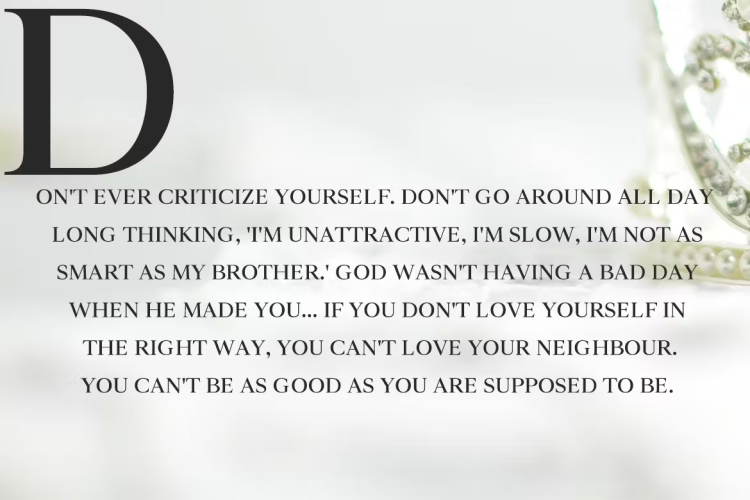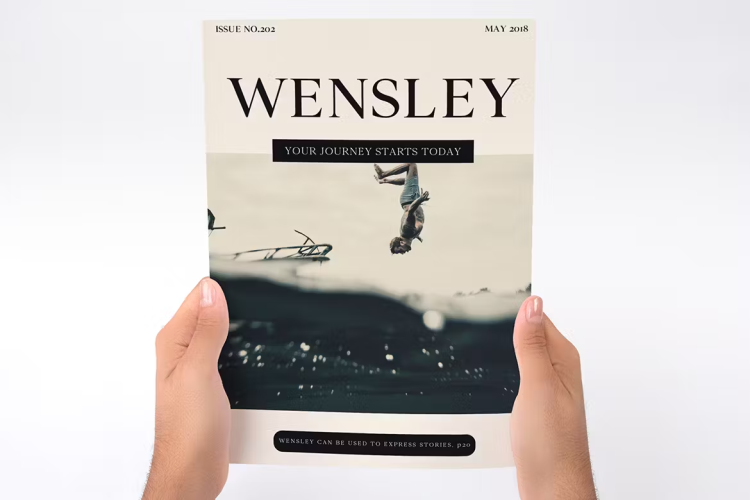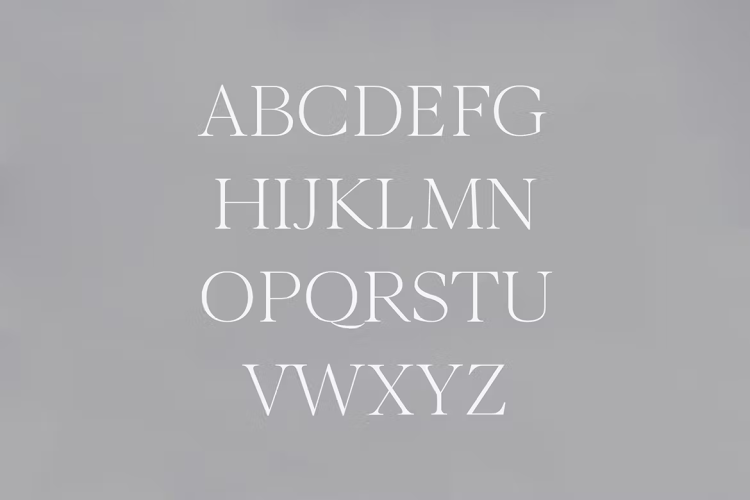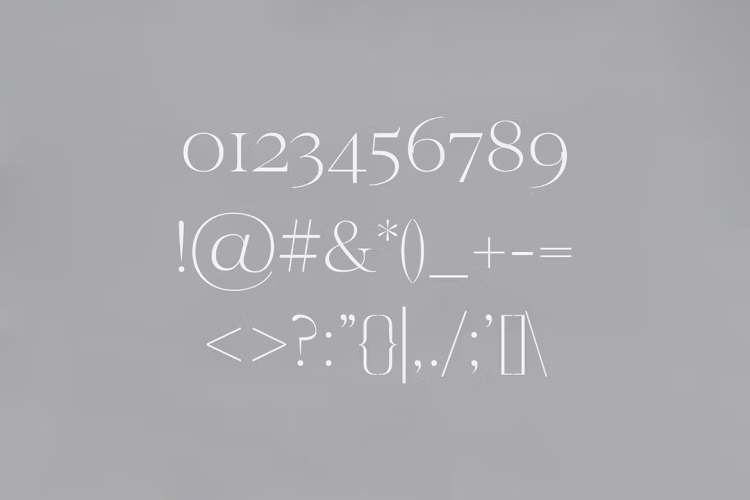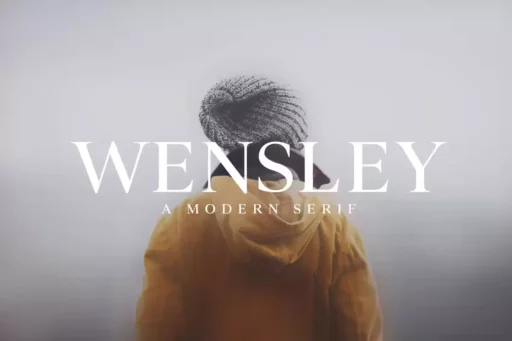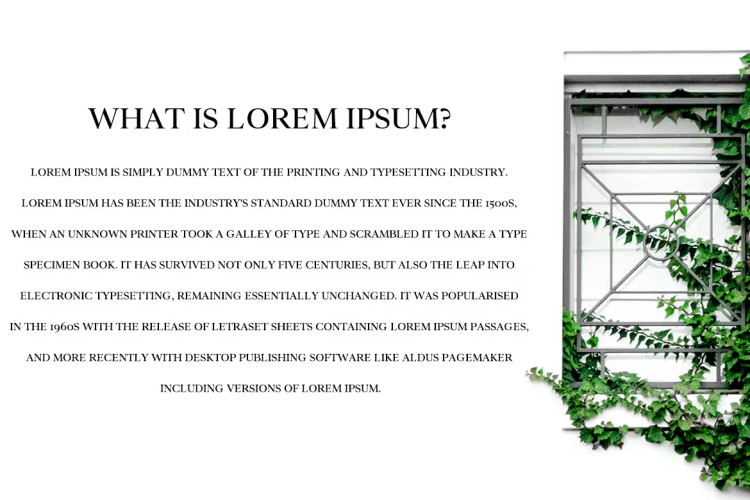
Wensley Font
Wensley is a very clean and simple serif font family that is perfect to bring elegance in your designs. This typeface has all the alphabets and symbols needed and also supports most of the Non-English languages to suit any language requirement. The look of Wensley is very traditional and it works perfectly with script, signature, or handwriting fonts as it helps create a balance between the modern and the classic.
Wensley is a very adaptable serif font suitable for a wide range of projects and fields. It is bold and very easy to read and, therefore, very suitable for creating attention-grabbing headlines and titles for any print or digital media. For use in magazines or editorials, the uptown sophistication of Wensley will make your headings look more professional and refined. The classy serifs of Wensley are perfect for imparting a sense of formality and sophistication to logos and brand identities, which is why this font is ideal for high-end products and services. Furthermore, Wensley excels in the presentation, where due to the clear and elegant layout, the output is clean and presentable. For posters and ads, the large and strong Wensley can help get your point across and be noticed.
The following are Wensley’s characteristics that fulfil various design requirements. It comes in three different styles: Regular, Light, and Bold, which makes it versatile in graphic design when it comes to the text, from fine and almost unnoticeable to bold and expressive heading. The font files are available in TTF (True Type Font), OTF (Open Type Font), and Web Font Kit, making them usable across all major operating systems and devices. These formats help make Wensley applicable in both printed and electronic media to enable the designers to have all that they need.
Where Wensley Font works best
Wensley Font gives long-form text a classic, trustworthy rhythm — ideal for magazine spreads, annual reports and book interiors.
Pair Wensley Font with generous letter-spacing for wordmarks in fashion, hospitality, wine and jewellery branding.
Use Wensley Font for slide titles in Keynote, PowerPoint or Google Slides to add authority without looking dated.